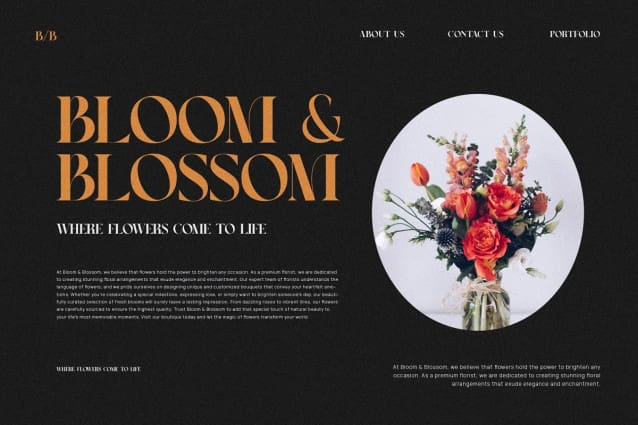
Imoger Font
Imoger Font is a unique and very elegant font for branding and logo designs Elegant serif typeface combined with a classy and modern style. This type of font is very suitable for your various needs such as branding projects, logos, wedding designs, social media posts, advertisements, product packaging, product designs, labels, photography, watermarks, invitations, stationery, and any project, created with high level of readability. you will not be disappointed if you buy this font!!